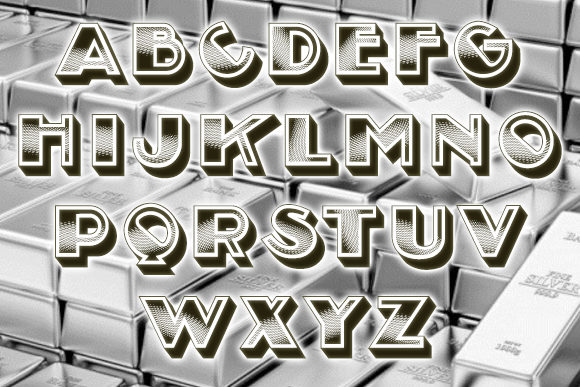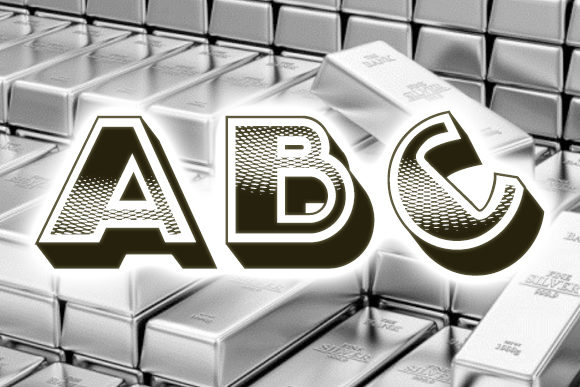
Introduction to Silver Font
Remember that moment when you’re brainstorming a new creative project, and suddenly, a spark of inspiration hits you? The possibilities are endless, and the excitement is palpable. You’re eager to bring your vision to life, but you need the perfect design resource to make it happen. That’s where the Silver Font comes in – a stunning 3D font that adds a touch of sophistication to any project.
With its unique, high-quality design, the Silver Font is a valuable addition to any designer’s toolkit. Whether you’re creating logos, banners, flyers, or anything in between, this font is sure to make your work stand out. Plus, with a transparent background, you can easily integrate it into your design without any distractions. And the best part? You can download it for free, making it an accessible design resource for creatives of all levels.
- High-Quality Design: Silver Font offers a unique blend of elegance and sophistication, making it an ideal choice for creative projects.
- Large Character Set: This font features a large character set, including uppercase and lowercase letters, numbers, and special characters.
Honest Review: Silver Font
As a designer, I’m always on the lookout for unique and high-quality design resources to elevate my creative projects. Recently, I came across the Silver Font, and I must say it’s a gem! ✨ The font’s sleek and modern design makes it perfect for a wide range of applications, from business presentations to social media graphics.
- What works well: ✨
- Sleek and modern design
- High-quality font for professional projects
- Limitations: ⚠️
- Not suitable for formal or traditional designs
Overall, the Silver Font is a valuable design resource that I highly recommend. Its versatility and high-quality design make it an excellent choice for any creative project. Just be aware of its limitations and use it accordingly.
The Silver Font is commonly used for creative projects, such as designing logos, business cards, and brochures. Its high-quality design and transparent background make it perfect for presentations, documents, and websites.